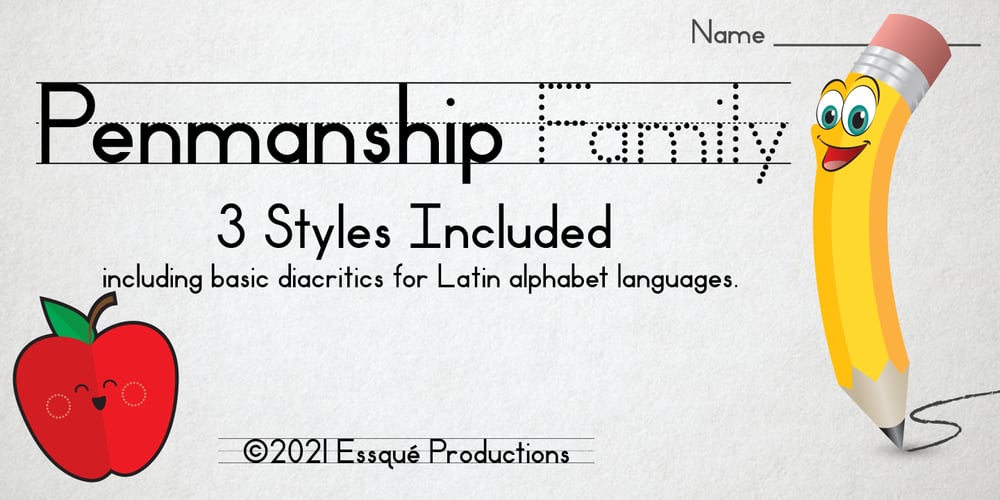
Penmanship
Penmanship font
Penmanship Font Family was designed by Stephen M Knouse and published by Essqué Productions. Penmanship contains 3 styles and family package options. This font was designed with scholastic visuals in mind. Whether advertising for a school event, or creating handwriting worksheets for young children, this font covers all the basics with Latin alphabet languages. Three fonts with identical spacing to make interchangeable.Spacebar adds a regular space between words/sentences. To connect words with ledger lines, use the underscore (_).